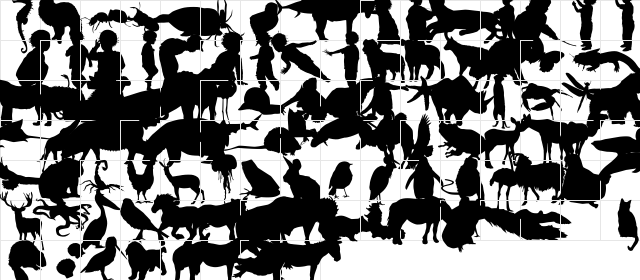
Le monde de Victor Regular
| Designer | Philippe Andrevon |
Le monde de Victor is a composed and adaptable typeface that performs quietly and consistently across a wide range of design contexts.